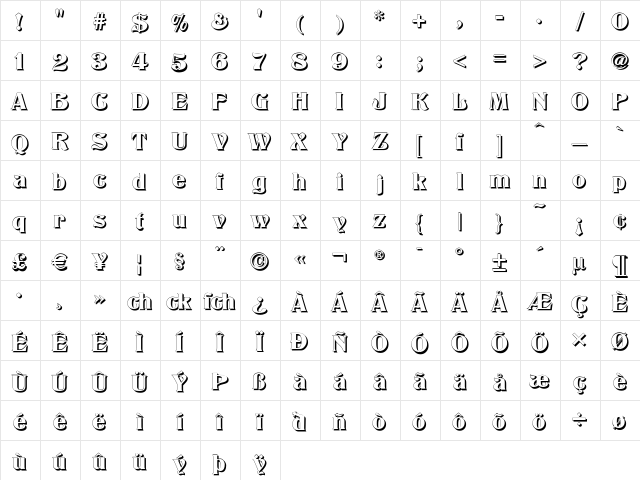
Titania Shadow Regular
Design Context for Titania Shadow Typeface
Titania Shadow is built around its visual character rather than neutral utility — its distinctive forms are designed to make an impression at display sizes.
Font Pairing: Pair with a clean neutral sans-serif for body copy to let Titania Shadow's character lead without overwhelming the composition.
Pro Tip: Treat Titania Shadow as the centrepiece of your typographic hierarchy. One strong heading set in a decorative face can carry an entire layout.